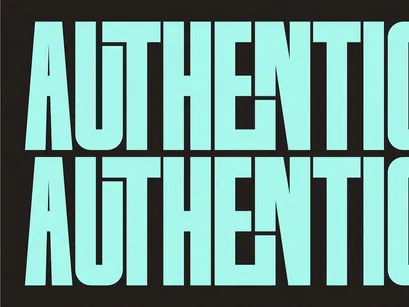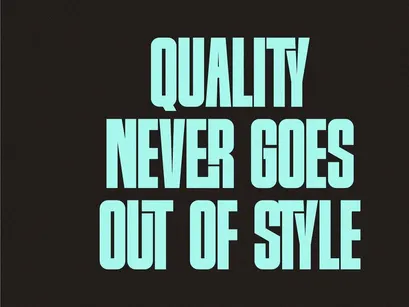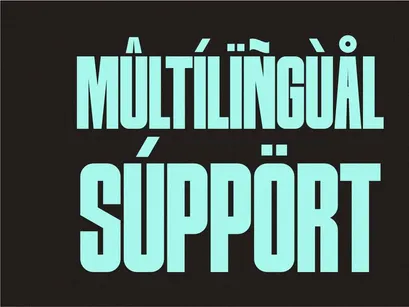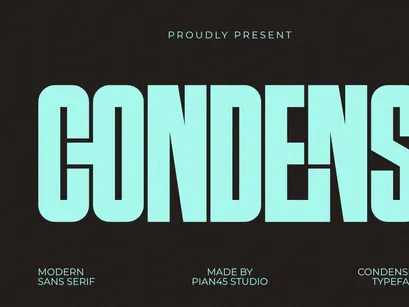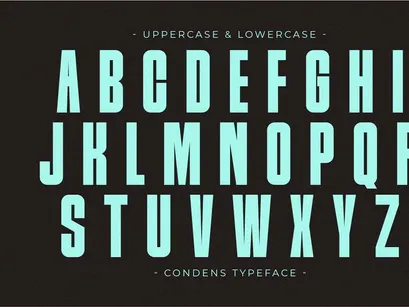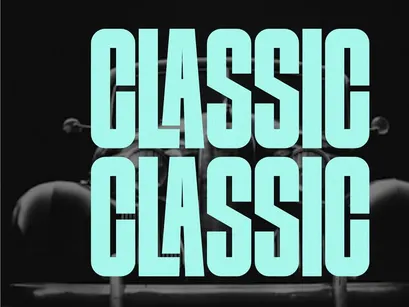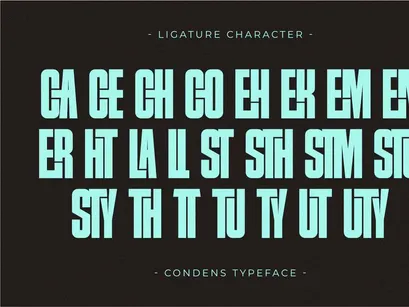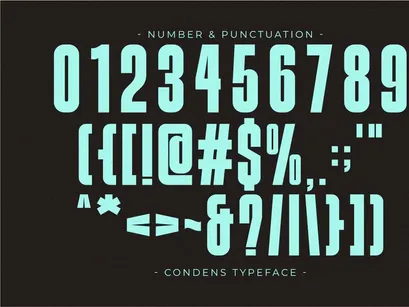
Condens is a sleek and high-impact Modern Condensed Sans Serif font designed for professional visibility and contemporary aesthetics. This ultra-condensed typeface features clean, tall lines and a bold, blocky structure, making it the perfect choice for minimalist branding, corporate logos, industrial-style posters, and architectural headlines. With its space-saving design and strong vertical presence, this all-caps font ensures your message looks sharp and authoritative across digital media, high-end apparel, and sophisticated editorial layouts.